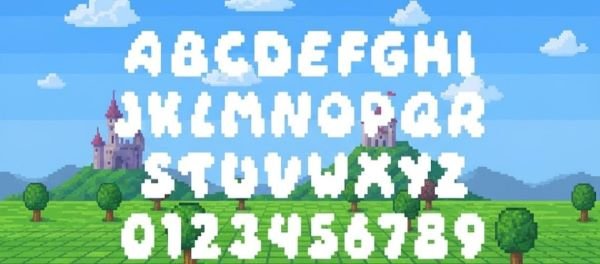
Daydream Font by DoubleGum is a soft bitmap display typeface that wears its whimsical, dreamy personality with complete ease. Its gently rounded letterforms create a light, almost weightless quality that makes any text feel like it belongs in a different, more magical world.
Children’s designs, creative journaling, posters, and imaginative branding all benefit from the quiet, warm charm this typeface carries without effort. Free for personal use, with a commercial license available for purchase.